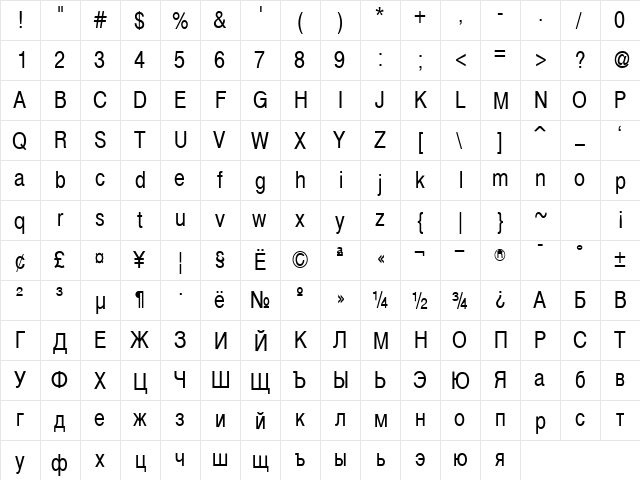
Cyrvetica-Narrow Normal
Design Context for Cyrvetica-Narrow Typeface
Cyrvetica-Narrow is a composed and adaptable typeface that performs quietly and consistently across a wide range of design contexts. The condensed width makes it efficient for tight spaces without sacrificing legibility.